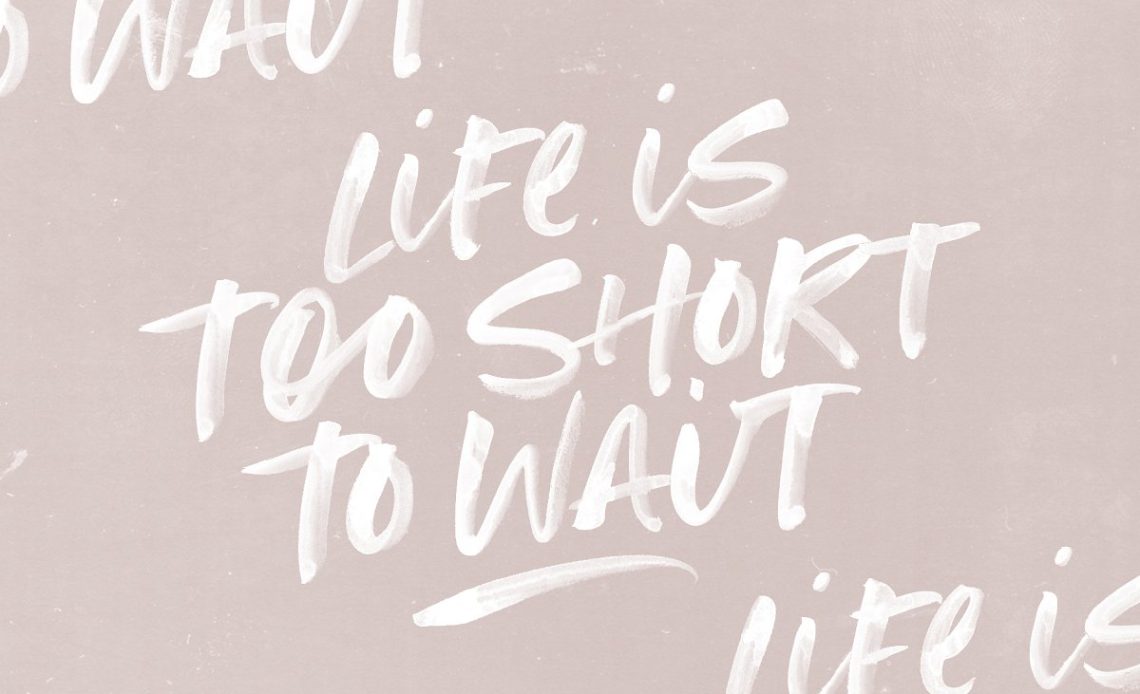
Hot Mess! SVG Font by Sam Parrett is a bold and brazen font family that is sure to capture attention. With its high resolution watercolor paint strokes built right into the font as a transparency, this Opentype-SVG font provides an irresistibly fun and realistic hand-brushed finish that is guaranteed to make your social media posts, advertisements, posters, and product packaging stand out from the crowd.
In addition to ligatures and language support, the SVG and Regular versions also include four swashes that you can use to underline your script text and add a stylish finishing touch. Simply type any of the square brackets to generate a swash.